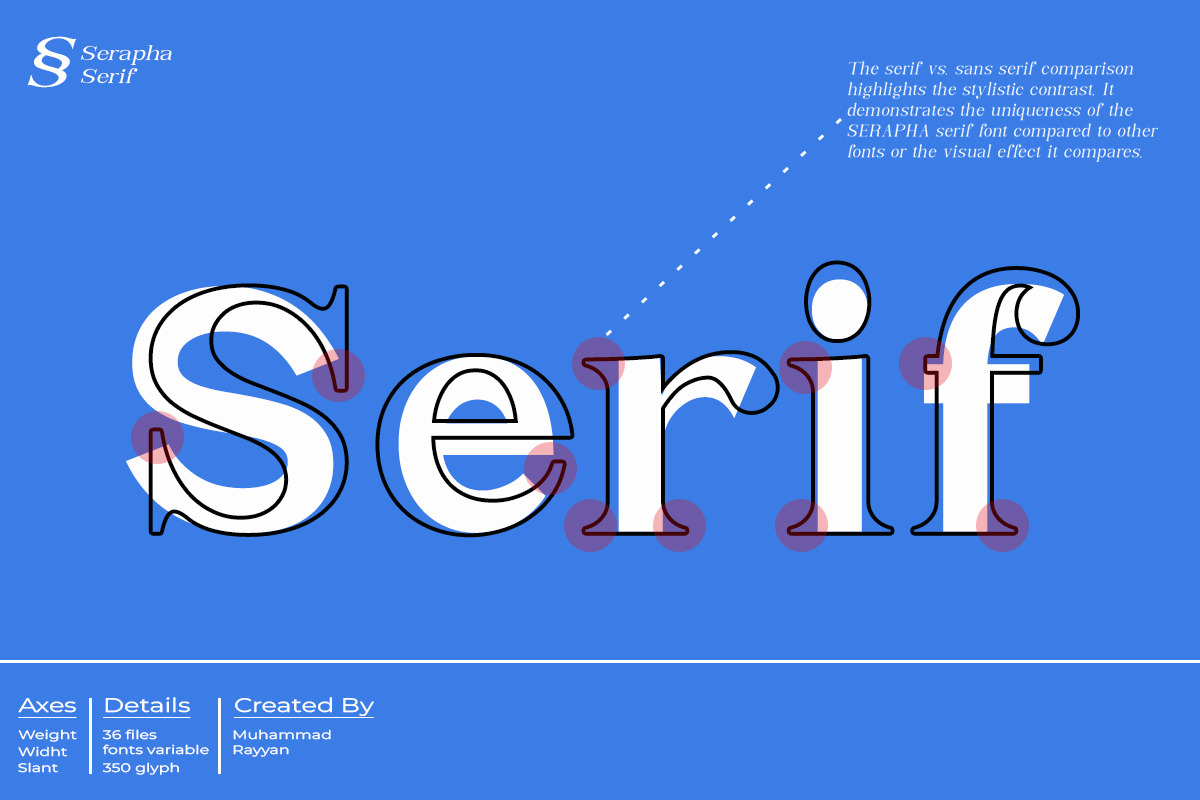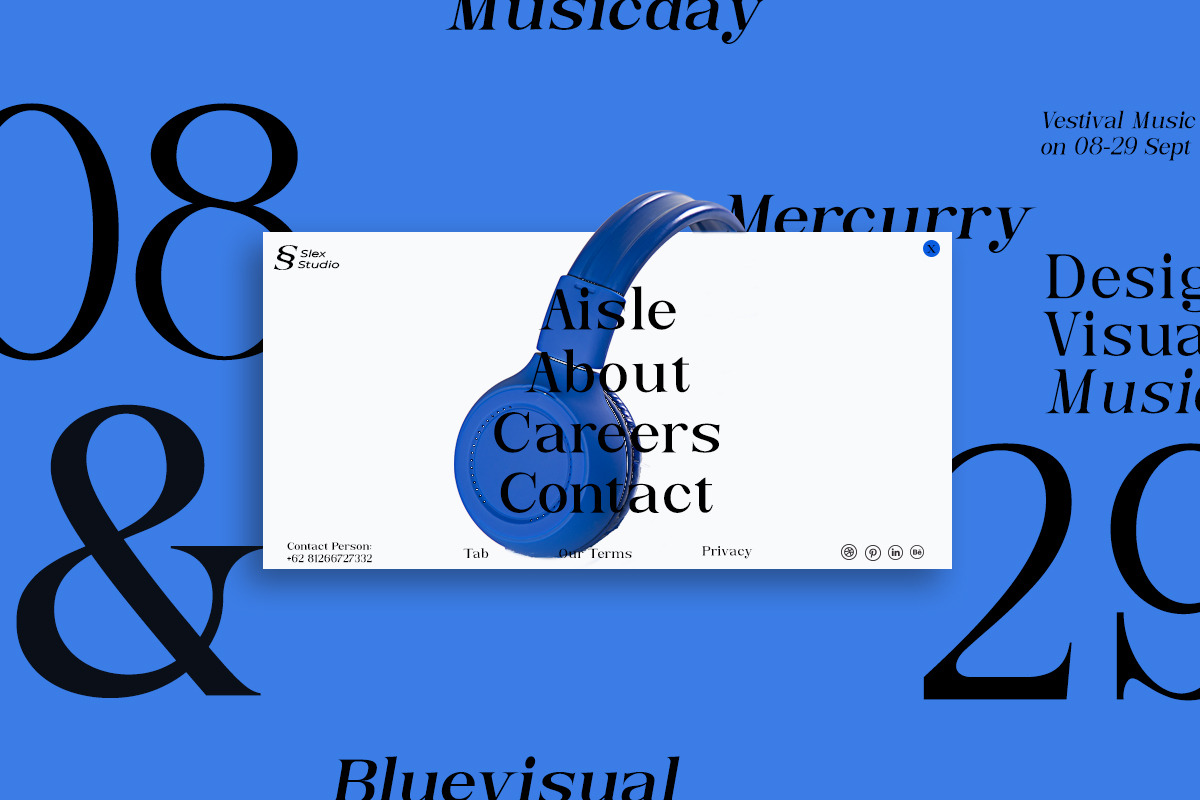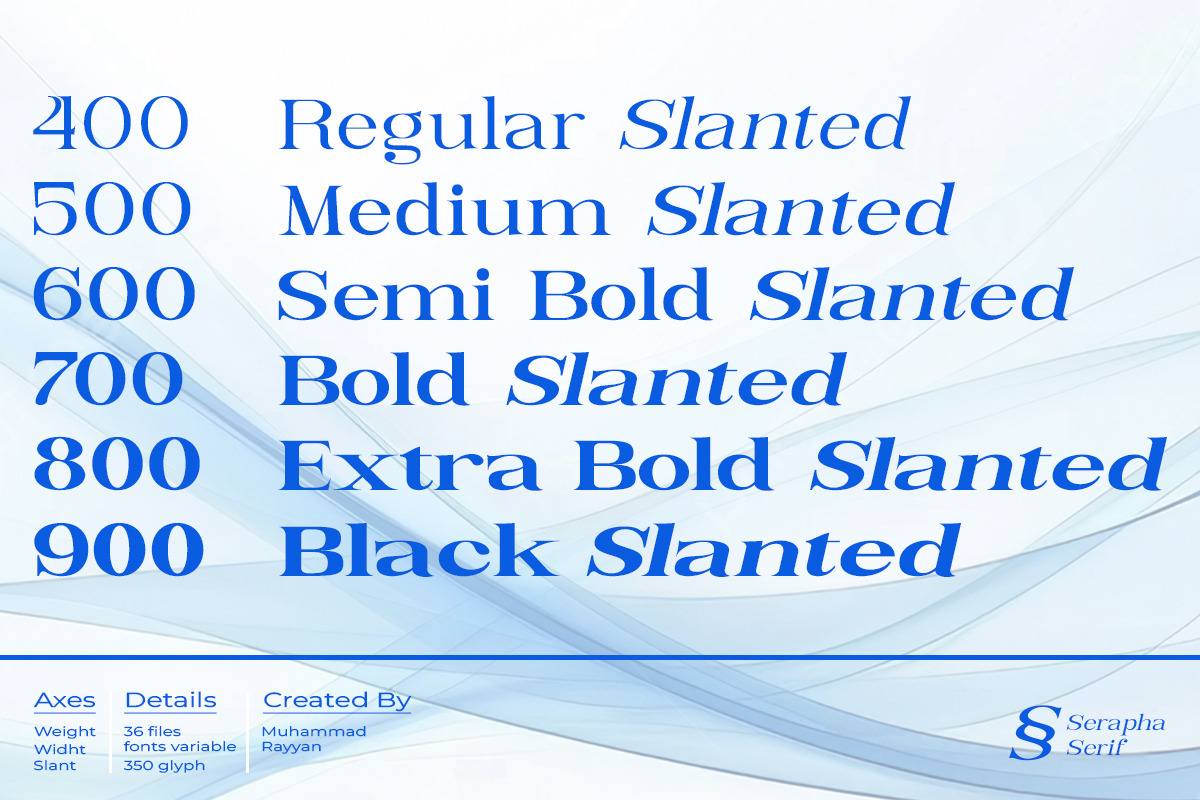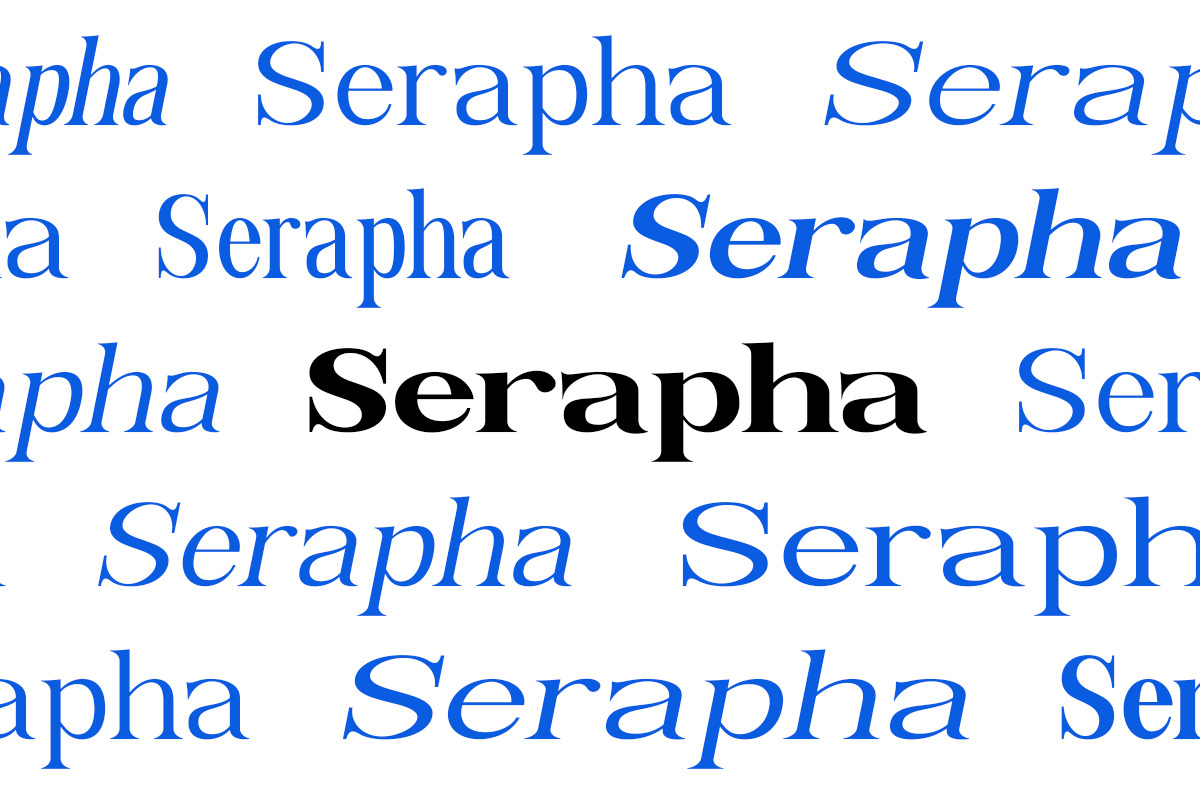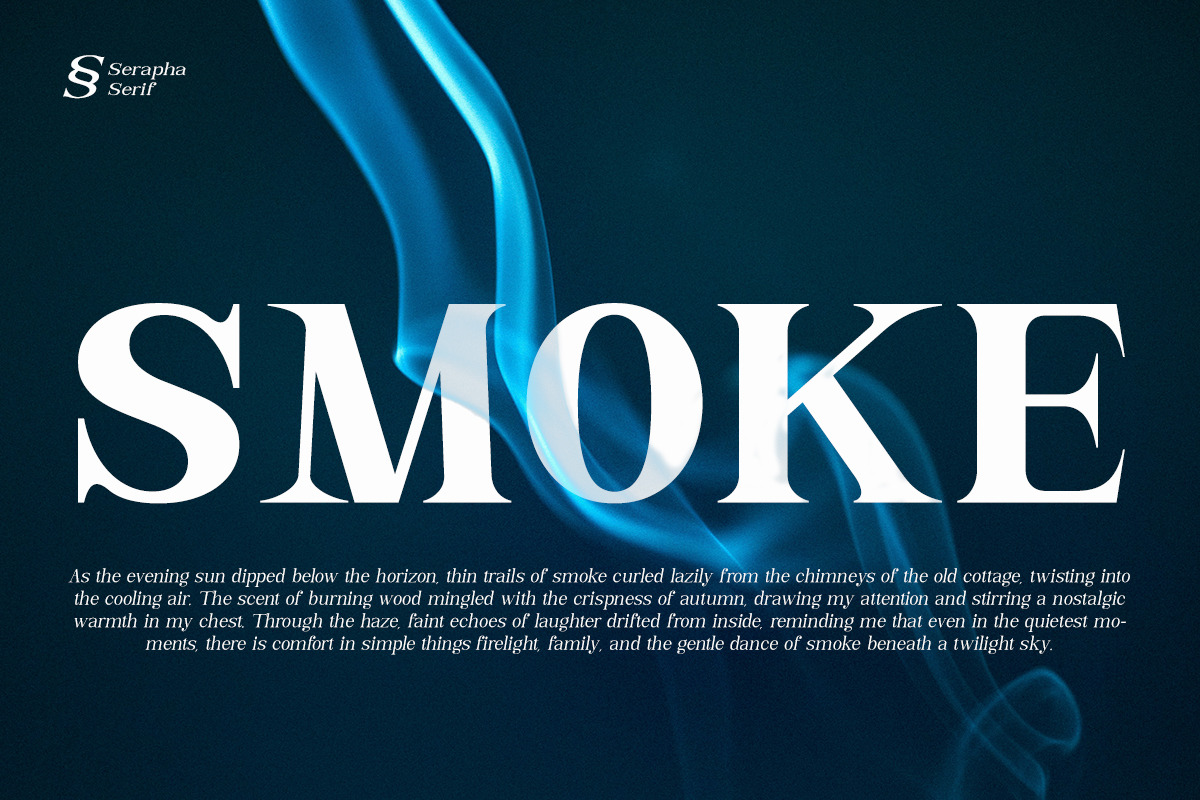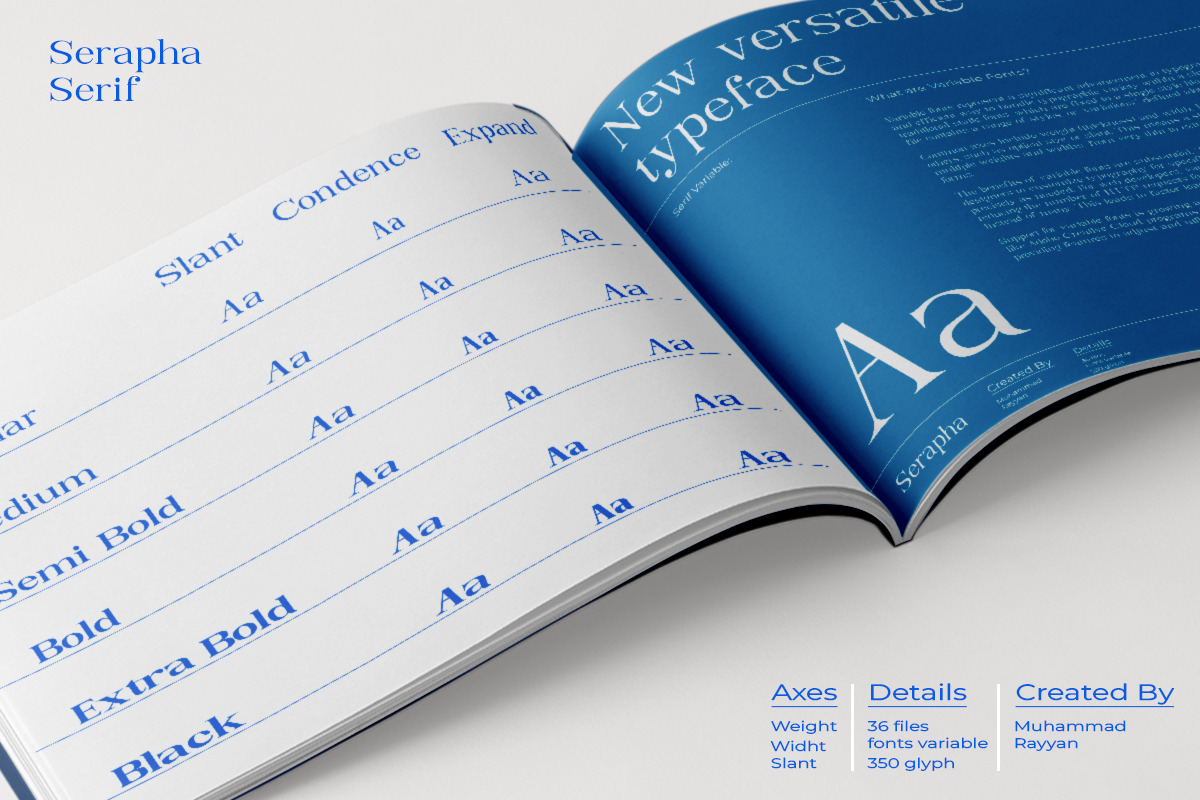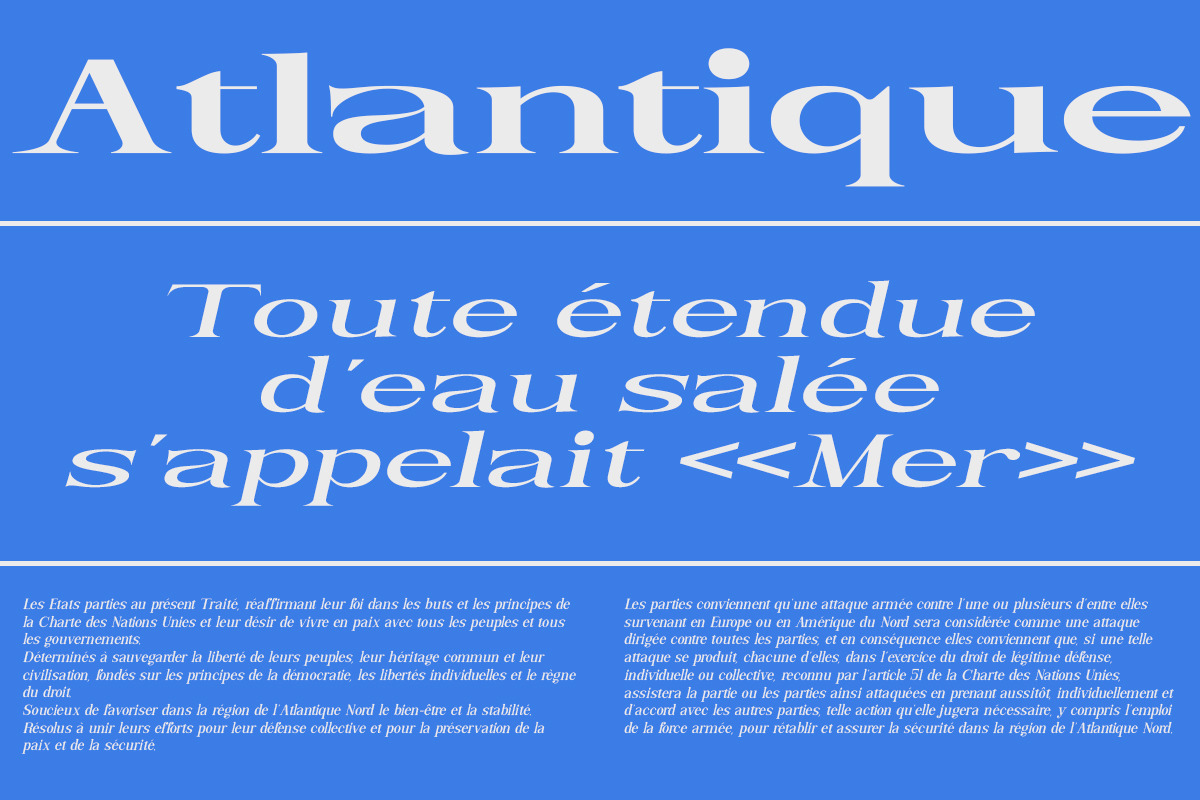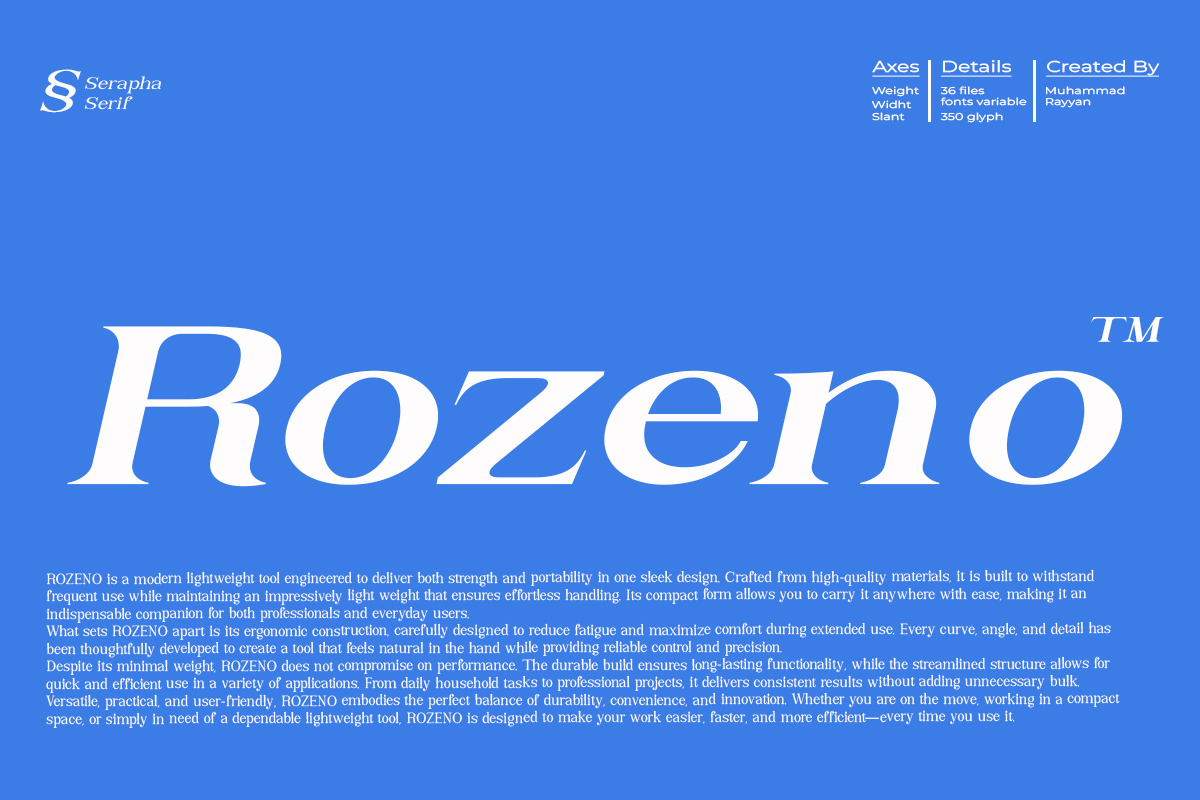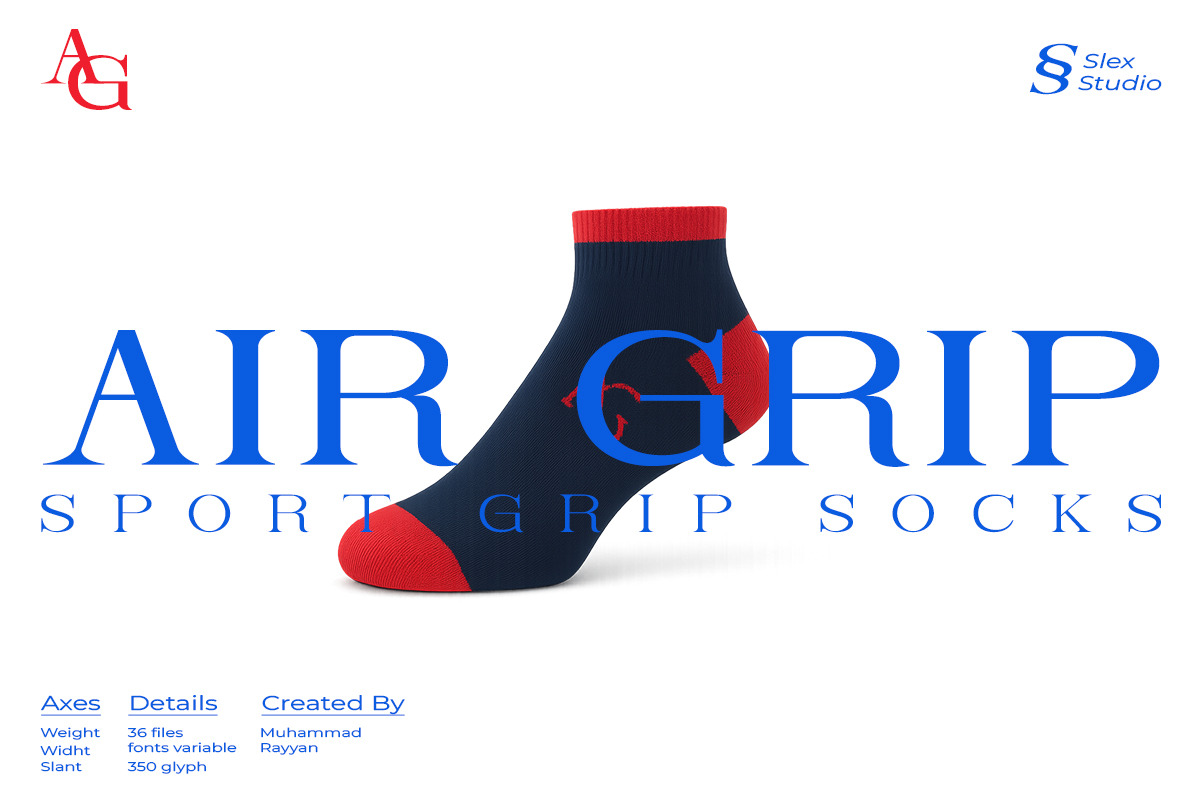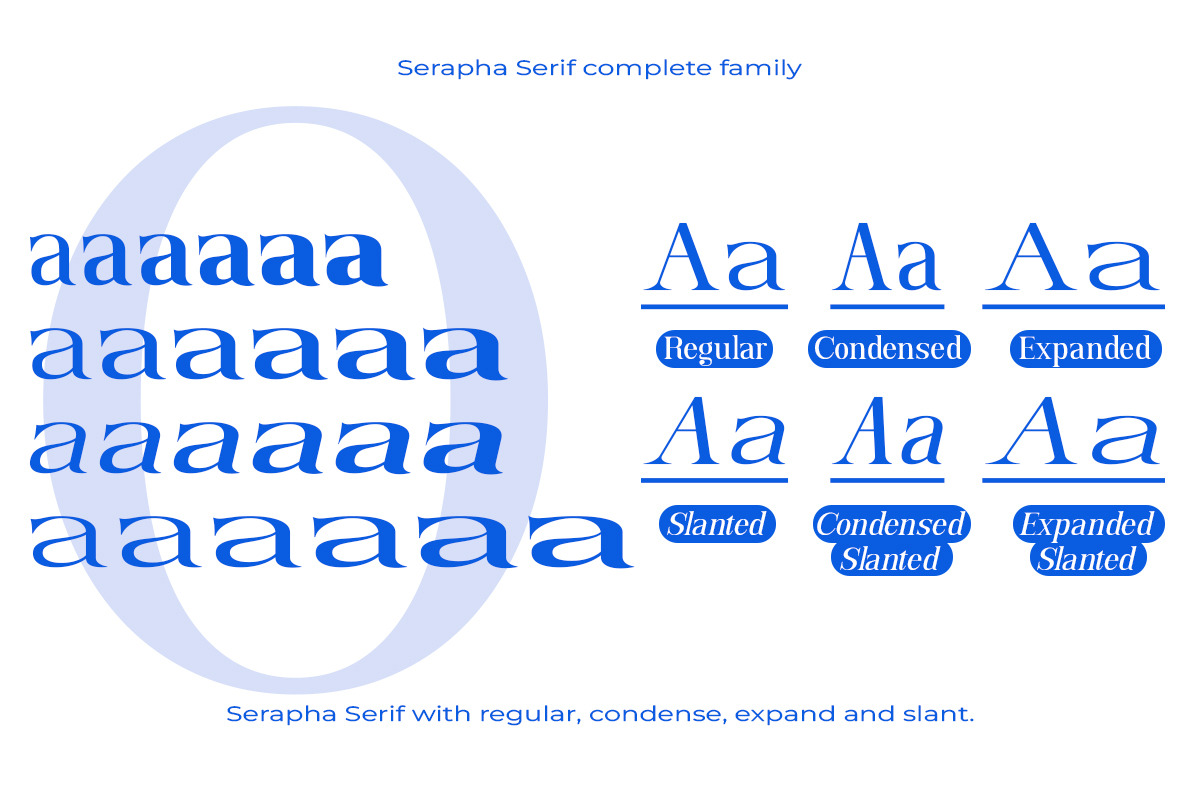
Serapha Serif
Serapha Serif is an elegant and flexible variable serif font, designed to blend classic elegance with a contemporary feel. With balanced letter proportions, slightly curved fine serifs, and precise, thin angles, this font conveys a strong yet refined elegance. The font offers “condense,” “expand,” “slant,” and “regular” style modules that allow for customization of both headlines and body text, while maintaining high readability. Serapha is suitable for branding, editorial, or premium graphic design that wants to convey a strong visual identity while maintaining a friendly and professional feel.